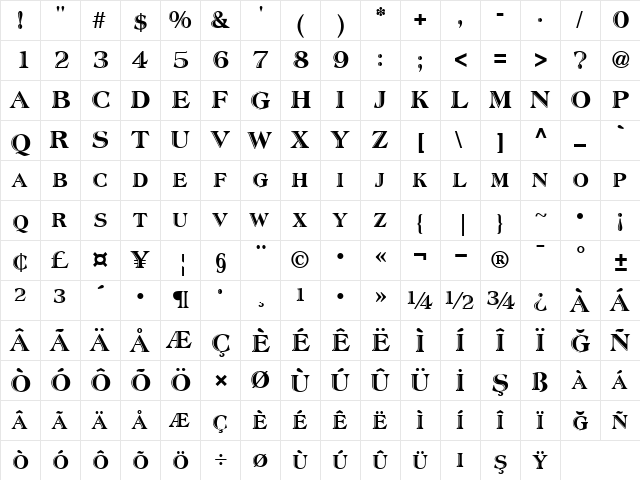
TR Atlantic Inline Normal
Design Context for TR Atlantic Inline Typeface
TR Atlantic Inline brings ornamental detail and strong personality to headlines and identities, where visual impact matters more than quiet functionality.
Font Pairing: Pair with a clean neutral sans-serif for body copy to let TR Atlantic Inline's character lead without overwhelming the composition.
Pro Tip: Treat TR Atlantic Inline as the centrepiece of your typographic hierarchy. One strong heading set in a decorative face can carry an entire layout.